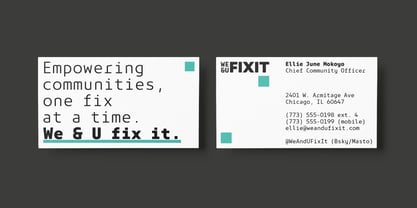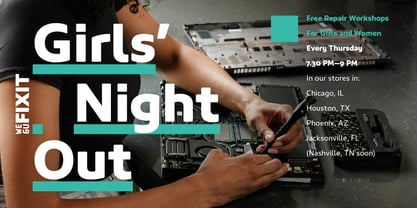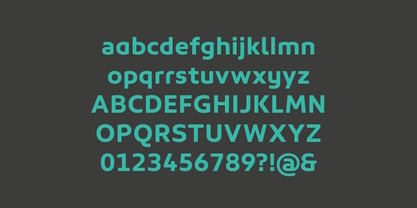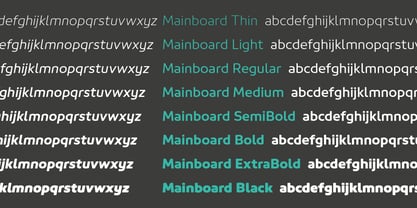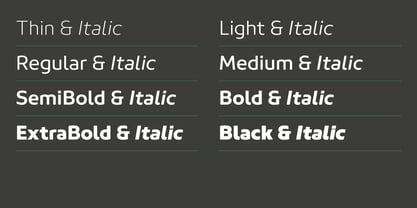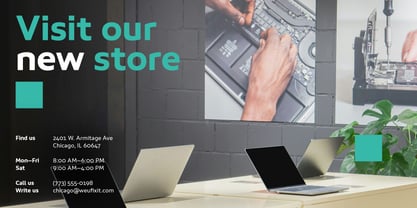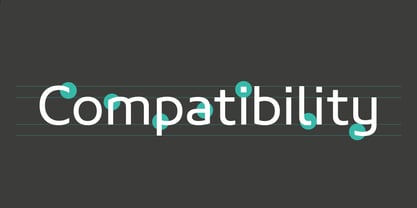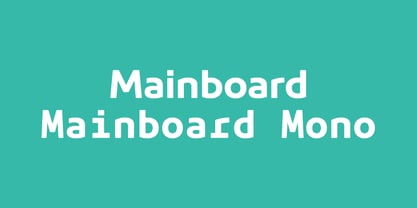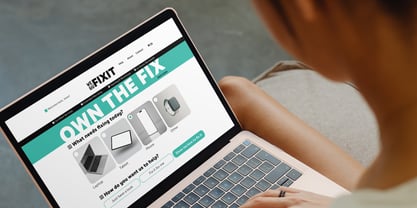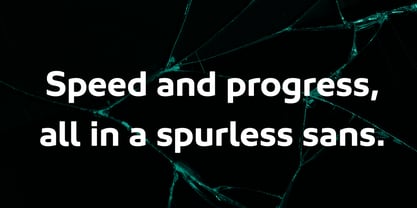
Mainboard
The Mainboard Font Family was designed by Moritz Kleinsorge and published by Identity Letters. Mainboard contains 16 styles and family package options. More about this family
They seem to be worlds apart—but sports and computing have one thing in common: the constant pursuit of speed and progress. Mainboard is our approach to expressing this ambition typographically. It’s a sleek sans with pleasant proportions and a distinct spurless appearance. Its humanist skeleton with generous apertures and rectangular details make for easy legibility in all resolutions and sizes. The family of 16 fonts (8 weights plus italics) is equipped with 600+ glyphs and can be fine-tuned with various stylistic sets. Pair it with Mainboard Mono: This winning combination might give you the edge over those runner-ups breathing down your neck while you’re chasing world records.